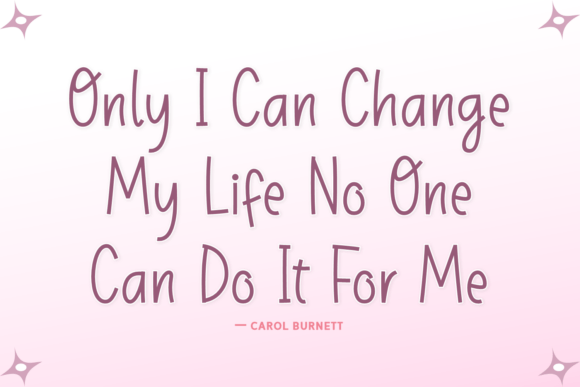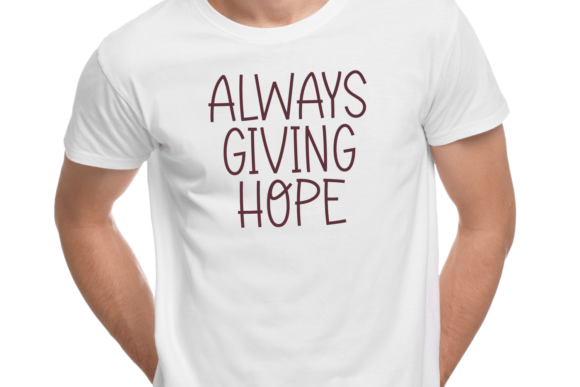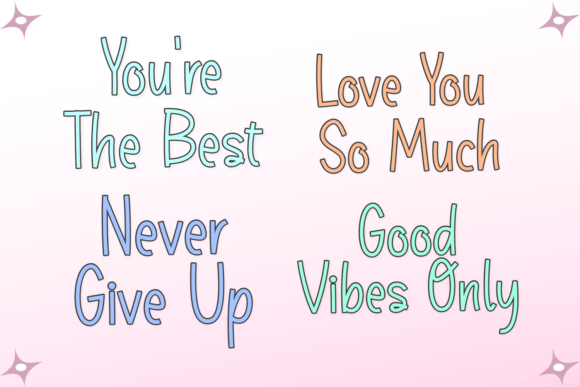
The Beauty of Simplicity: A Deep Dive into the Beautiful Thoughts Font
I’ll never forget the time I was working on a Valentine’s Day project for a client, and I just couldn’t find the right font to convey the warmth and elegance they were looking for. I scrolled through page after page of Google Fonts, but nothing seemed quite right. That was until I stumbled upon the Beautiful Thoughts font. It was like a breath of fresh air – simple, yet elegant; chic, yet charming. In this article, I’ll share my journey with this beautiful font, and explore its features, uses, and alternatives.
An Honest Review of Beautiful Thoughts
- ✨ Exceptional legibility, making it perfect for quotes and notes
- ✅ Chic charm that adds a touch of elegance to any design
- 💕 Tender, love-infused warmth that’s ideal for Valentine’s Day themes
- 📚 Timeless appeal that makes it an all-season go-to font
While Beautiful Thoughts is an amazing font, it’s not without its quirks. For example:
- 🤔 It may not be the best choice for body text, as it’s a bit too thin and elegant for long blocks of text
- ⚠️ Some users have reported issues with kerning on certain letters, but this can be easily adjusted in most design software
The Designer Inspiration Behind Beautiful Thoughts
While I couldn’t find any information on the specific designer behind Beautiful Thoughts, it’s clear that they were inspired by the beauty of simplicity. The font’s elegant lines and charming nuances make it perfect for a wide range of design projects, from fashion to Valentine’s Day themes.
Q: What is the personality of the Beautiful Thoughts font?
A: Beautiful Thoughts is a elegant and charming font with a touch of sophistication. It’s perfect for designs that require a sense of love and warmth.
Q: Is Beautiful Thoughts a script font?
A: No, Beautiful Thoughts is a sans-serif font with a elegant and refined feel.
Q: Can I use Beautiful Thoughts for body text?
A: While Beautiful Thoughts is a beautiful font, it’s not recommended for body text due to its thin and elegant lines. It’s better suited for headlines, titles, and short blocks of text.